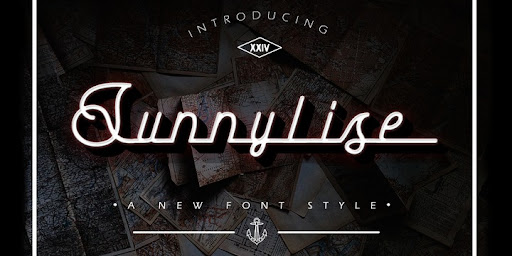
Download Rolantha Font Family From Just Lett
Download Now Server 1 Download Now Server 3 Download Now Server 2 Rolantha is script and handwritten font. This font is perfect for your all design project such as typography design, lettering design, logo type, book cover, poster, flyer, calligraphy, etc. Features: ~UPPERCASE ~lowercase ~Numeral & Puncuation ~Multilingual Accent Download Rolantha Font Family From Just Lett
Download Melya Font Family From Stripes Studio
Download Now Server 1 Download Now Server 3 Download Now Server 2 Melya Script, a modern hand writing, I hope you are interested in this font. It can be used easily and simply because there are a lot of features in it and contains a complete set of letters in lower and uppercase, assorted punctuation, numbers, and multilingual support. It also contains several ligatures and alternate style stylistic characters. To enable the OpenType Stylistic alternates, you need a program that supports OpenType features such as Adobe Illustrator CS, Adobe Indesign & CorelDraw X6-X7, Microsoft Word 2010 or later versions. And there are additional ways to access alternates/swashes, using Character Map (Windows), Nexus Font (Windows), Font Book (Mac) or a software program such as PopChar (for Windows and Mac). How to access all alternative characters using Adob...
Download Sunnylise Font Family From Mevstory Studio
Download Now Server 1 Download Now Server 3 Download Now Server 2 Sunnylise, from Mhdafifersya, is a handwritten script font with a simple and classy style. It includes a set of lowercase characters without connecting strokes. Be sure to turn on your OpenType features when using Sunnylise - it’s packed with ligatures and alternate characters for both upper and lower case glyphs. This font is great for your next creative projects such as headlines, quotes, album cover, bold branding, business cards, and many other design project. Download Sunnylise Font Family From Mevstory Studio
Download My Diary Script Font Family From Posts Type
Download Now Server 1 Download Now Server 3 Download Now Server 2 My Diary Script is a new modern script font with an irregular baseline. Trendy and feminine. My Diary looks lovely on wedding invitations, Thank you cards, quotes, greeting cards, logos, business cards and more. Perfect for using in ink or watercolor. Including initial and terminal letters, alternates, ligatures and multiple language support. To enable the OpenType Stylistic alternates, you need a program that supports OpenType features such as Adobe Illustrator CS, Adobe Indesign & CorelDraw X6-X7, Microsoft Word 2010 or later versions. There are additional ways to access alternates/swashes, using Character Map (Windows), Nexus Font (Windows), Font Book (Mac) or a software program such as PopChar (for Windows and Mac). How to access all alternative characters: https://www.youtu...
Download Forestry Script Font Family From Typehill Studio
Download Now Server 1 Download Now Server 3 Download Now Server 2 Forestry Script is a new modern script font with an irregular baseline. Trendy and feminine style. Forestry looks lovely on wedding invitations, thank you cards, quotes, greeting cards, logos, business cards and more. Perfect for using in ink or watercolour. Including initial and terminal letters, alternates and multiple language support.Files included: Forestry Script.OTF Forestry Script.TTF To enable the OpenType Stylistic alternates, you need a program that supports OpenType features such as Adobe Illustrator CS, Adobe Indesign & CorelDraw X6-X7, Microsoft Word 2010 or later versions. There are additional ways to access alternates/swashes, using Character Map (Windows), Nexus Font (Windows), Font Book (Mac) or a software program such as PopChar (for Windows and Mac). How to ...
Download Handriona Font Family From Rastype Studio
Download Now Server 1 Download Now Server 3 Download Now Server 2 Handriona Script is modern calligraphy font. This font is casual and pretty with swashes. Can be used for various purposes. such as logo, product packaging, wedding invitations, branding, headlines, signage, labels, signature, book covers, posters, quotes and more. Handriona Script features OpenType stylistic alternates, ligatures and International support for most Western Languages. To enable the OpenType Stylistic alternates, you need a program that supports OpenType features such as Adobe Illustrator CS, Adobe Indesign & CorelDraw X6-X7, Microsoft Word 2010 or later versions. How to access all alternative characters using Adobe Illustrator: https://www.youtube.com/watch?v=XzwjMkbB-wQ Handriona Script is coded with PUA Unicode, which allows full access to all the extra charact...
Download South Bali Font Family From DawnCreative.Id
Download Now Server 1 Download Now Server 3 Download Now Server 2 South Bali is a fun and bold handwritten font with a unique feel. Get inspired by its unique charm. Download South Bali Font Family From DawnCreative.Id
Download Somersette Font Family From Luna Paper Co
Download Now Server 1 Download Now Server 3 Download Now Server 2 Introducing the elegant new Somersette Monoline Script Font! If you are needing a touch of casual chic calligraphy for your designs, this font was created for you! Somersette was built with OpenType features and includes beginning and ending swashes, alternate characters for both lowercase and uppercase letters, loads of different swash alternates for lowercase letters, numbers, punctuation, alternates, and ligatures. Over 500 glyphs! Download Somersette Font Family From Luna Paper Co
Download Landscape Font Family From Rochart
Download Now Server 1 Download Now Server 3 Download Now Server 2 Landscape is a modern hand writing script. It's great for logotype, Branding Design, Logo Design, Digital Lettering Arts, T-Shirt/Apparel, Poster, Magazine, Signs, Advertising Design, wedding invitation and any hand lettered needs. Download Landscape Font Family From Rochart
Download Monday Vacation Font Family From Din Studio
Download Now Server 1 Download Now Server 3 Download Now Server 2 Introducing Monday Vacation Font. Monday Vacation is a brush font and combines with a sans font (Solid +outline). Made with a natural brush. The texture from the brush font will make your design more beautiful and powerful. This font is suitable for any design like branding, quotes, t-shirt printing and etc. Included: Monday Vacation Regular Monday Vacation Italic Monday Vacation Sans Solid Monday Vacation Sans Outline Monday Vacation Extra Features: Accents (Multilingual characters) 39 Alternates 52 Extra Swashes PUA encoded Numerals and Punctuations (OpenType Standard) Customer support I hope you enjoy it !! Thanks for visiting and purchasing my font! Best Regards Donis M Download Monday Vacation Font Family From Din Studio
Download Modster Script Font Family From Moovied Co.
Download Now Server 1 Download Now Server 3 Download Now Server 2 Modster Script is a collective inspired by urban style created from the style of hand-lettering with love. Modster comes with a set of styles, alternatives, present and extra shadow. This font is ideal for branding, logos, handwritten quotes, product packaging, headers, posters, merchandise, social media books / cover titles, special events, etc. To enable the OpenType Stylistic alternates, you need a program that supports OpenType features such as Adobe Illustrator CS, Adobe Indesign & CorelDraw X6-X7. There are additional ways to access alternates, using Character Map (Windows), Nexus Font (Windows), Font Book (Mac) or a software program such as PopChar (for Windows and Mac). Download Modster Script Font Family From Moovied Co.